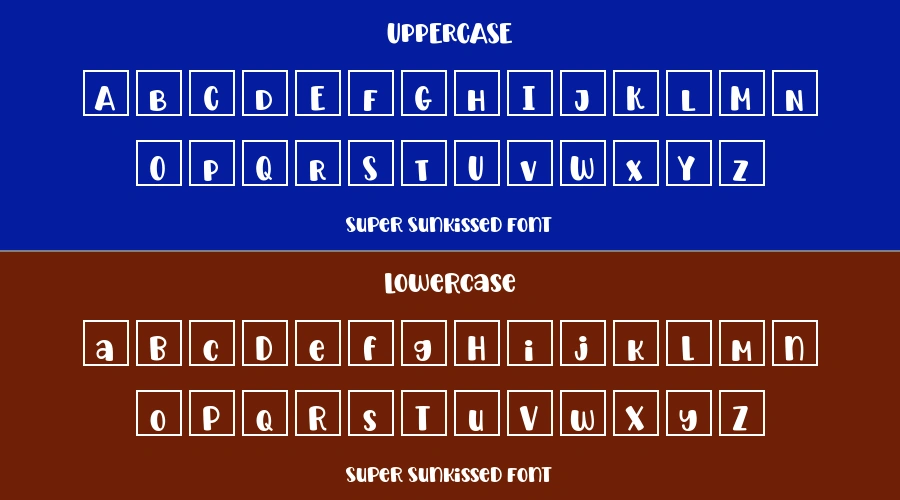
About Super Sunkissed Font
Designed with precision, Super Sunkissed Font merges rounded corners with textural consistency in every character. This versatility makes it particularly effective for marketing materials, where reliability and adaptability directly impact communication quality. Each letterform demonstrates meticulous craftsmanship.
Technical excellence shines through elements like original character and decorative sets, enhancing typographic versatility. In campaign headers settings, Super Sunkissed Font proves its worth through superior color application. The thoughtful execution of contrast level and design philosophy ensures professional results.